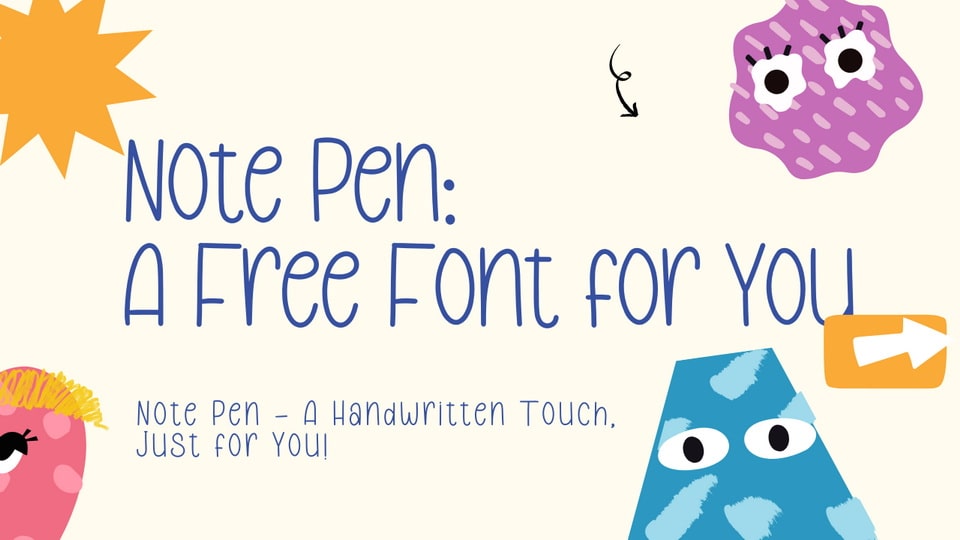
Download Note Pen font, a natural and smooth handwritten typeface that mimics the effortless strokes of a real pen with its casual yet stylish appearance.